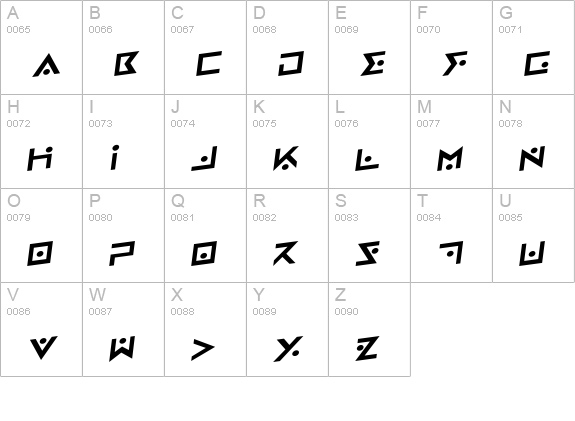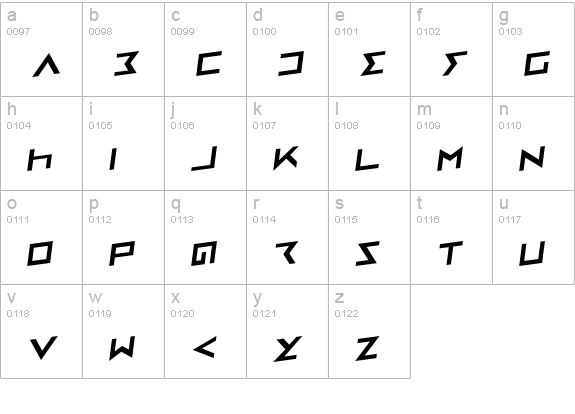
Iron Cobra Rotalic Font Details
Iron Cobra Rotalic font is a unique and eye-catching typeface that combines boldness with elegance. Its sleek, modern design features sharp edges and fluid curves that make it perfect for a wide range of design projects. The italicized style adds a touch of sophistication, making it ideal for creating attention-grabbing headlines, branding materials, and more. This versatile font is available for free download at FontsMarket.com, where you can easily access and start using it in your projects. Whether you're working on a website design, poster, or logo, Iron Cobra Rotalic font will help you make a bold statement and stand out from the crowd. With its bold and dynamic appearance, this font is sure to make a lasting impression on your audience.